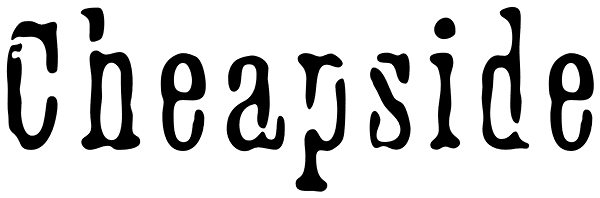
Cheapside
A condensed serif that’s been through the ravages of reproduction but has now been digitized for modern use. Elegantly wasted.
Cheapside Font